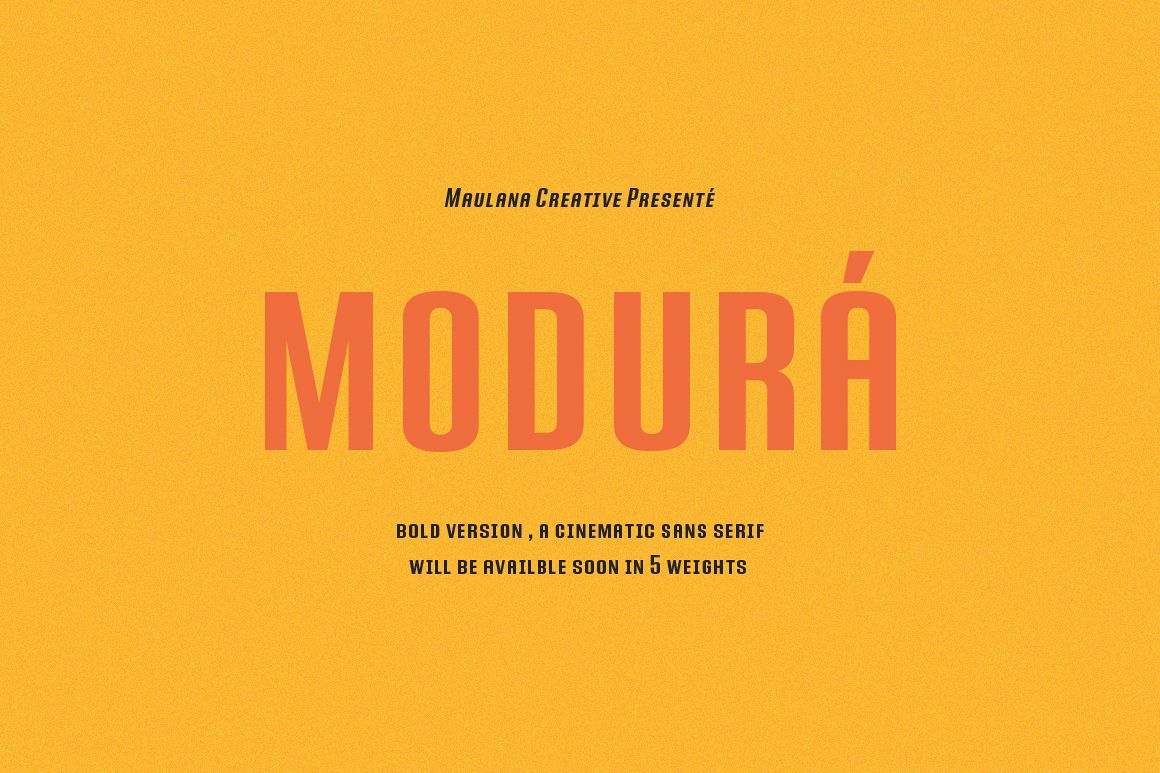
MODURA is a bold sans serif with Bold and Bold Italic. MODURA Sans Font is perfectly suited to branding, logos, magazines, films, website, headlines, titles, captions, games, apps, posters, t-shirts and more.This font available: